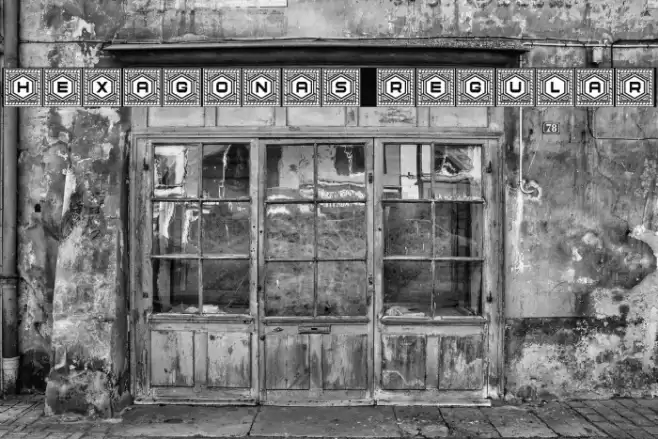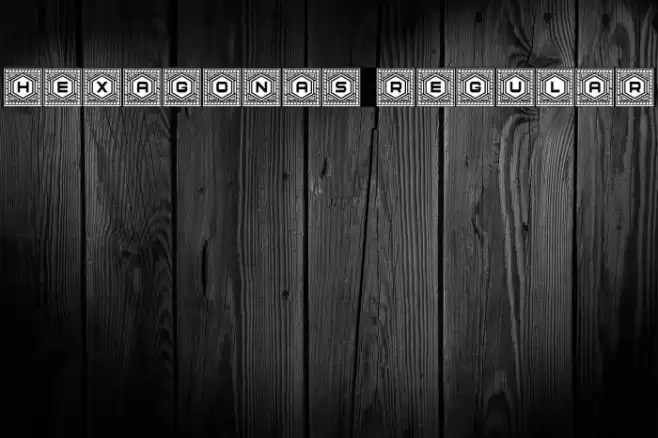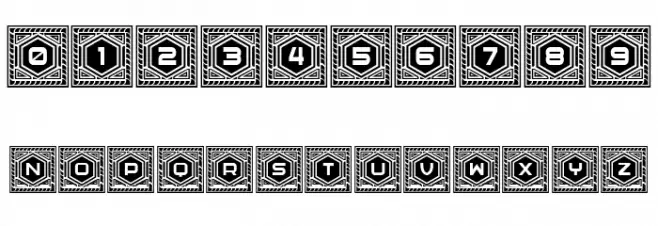
Hexagonas Regular Font
Hexagonas Regular Description
This font features a unique geometric design, with each character enclosed within a hexagonal frame. The letters and numbers are bold and prominently displayed, creating a striking visual impact. The intricate patterns within the hexagons add a decorative element, making it suitable for eye-catching designs. The font's style is reminiscent of modern digital aesthetics, with a touch of futuristic flair. The consistent use of hexagonal shapes provides a cohesive and structured appearance, making it ideal for projects that require a strong visual identity.
A bold, geometric font with characters enclosed in decorative hexagons from Uncategorized fonts.
- Proposed Projects: Ideal for branding, posters, digital art, and any project requiring a modern, striking visual style.